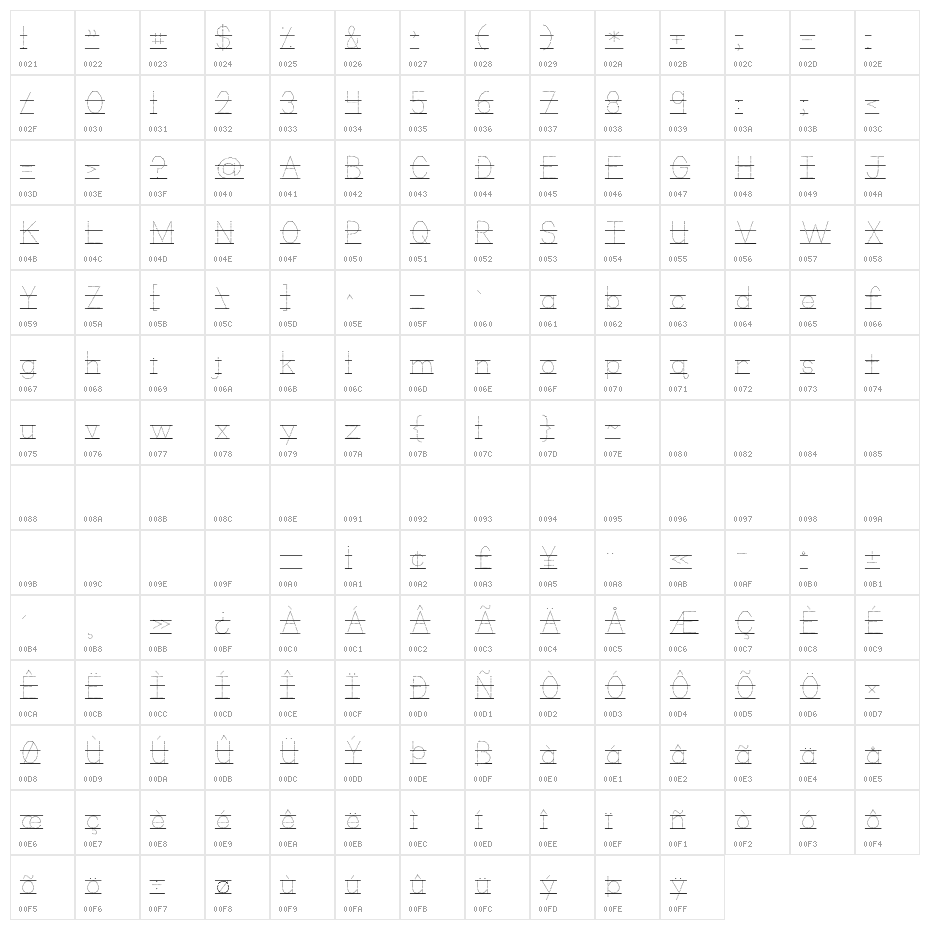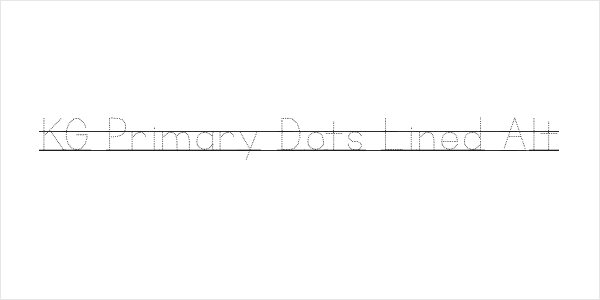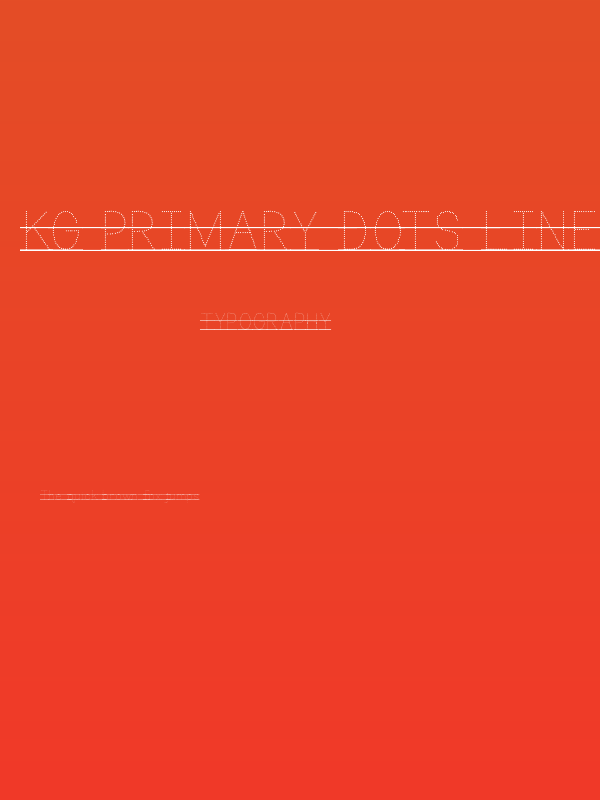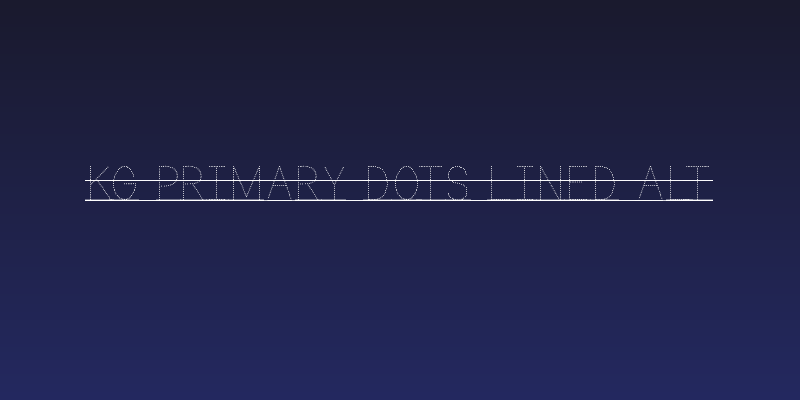
KG Primary Dots Lined Alt Font
KG Primary Dots Lined Alt Description
This font features a dotted style that is reminiscent of handwriting practice sheets used in primary education. Each character is composed of evenly spaced dots, providing a guide for tracing. The uppercase and lowercase letters are aligned on a baseline with additional guidelines for height, making it ideal for teaching letter formation. The numerals and special characters follow the same dotted pattern, ensuring consistency across all elements. The font's simplicity and clarity make it an excellent tool for educational purposes, particularly in early childhood learning environments.
| Overall Style | Educational |
| Use Case | Educational materials, handwriting practice sheets. |
| Proposed Projects | Ideal for educational materials, handwriting worksheets, and early childhood learning tools. |